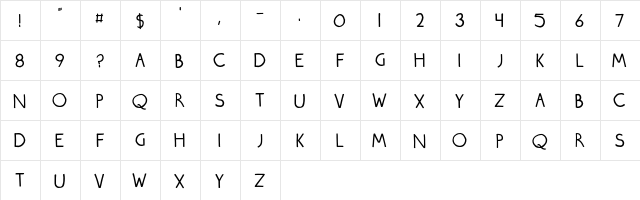
Roundmarker Regular
Design Context for Roundmarker Typeface
Roundmarker uses gentle rounded endings to create a warm, inviting typographic personality — less corporate than geometric sans, more refined than playful display fonts.
A natural fit for tech startups, health and wellness brands, children's products, and friendly consumer apps.
Font Pairing: Pairs well with a rounded or humanist sans for body copy, maintaining the friendly tone without relying on Roundmarker to carry extended reading.
Pro Tip: Pair Roundmarker with a geometric sans for a balanced system — the rounded softness works as a warm counterpoint to harder-edged companions.